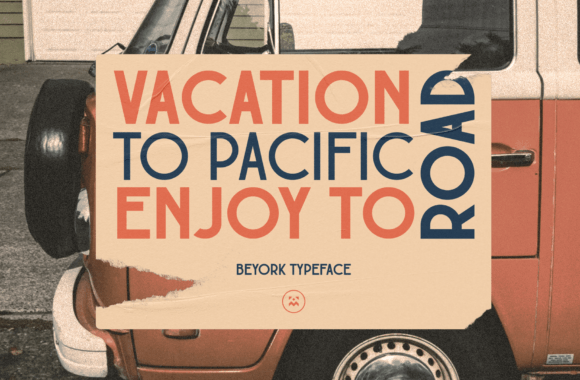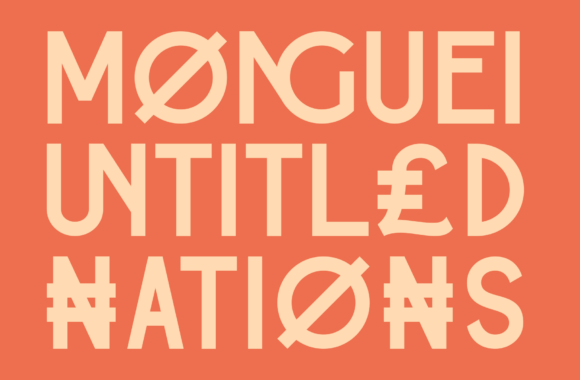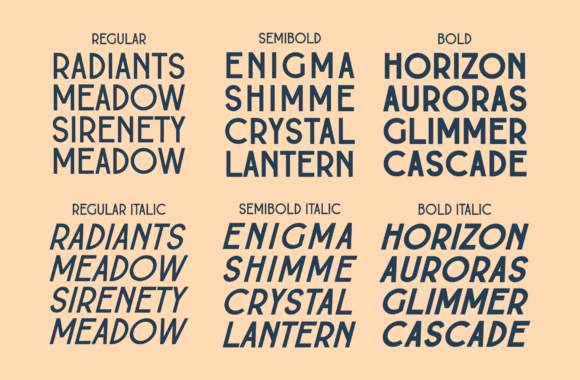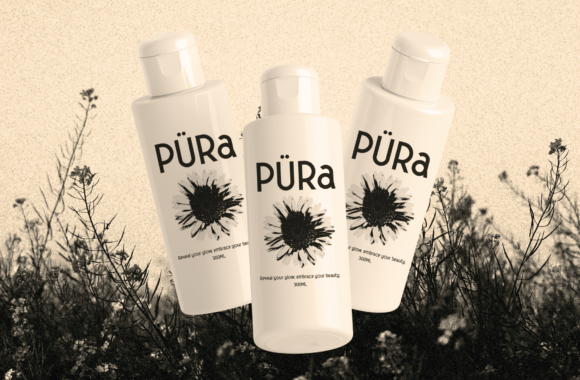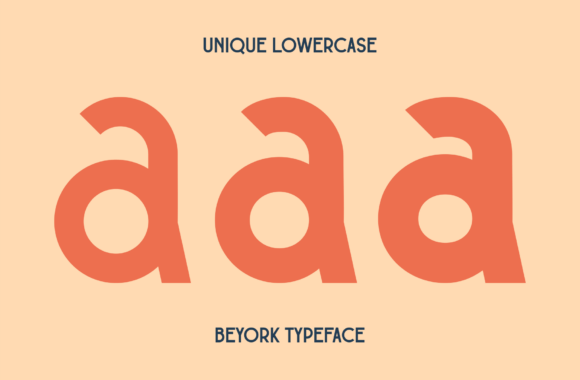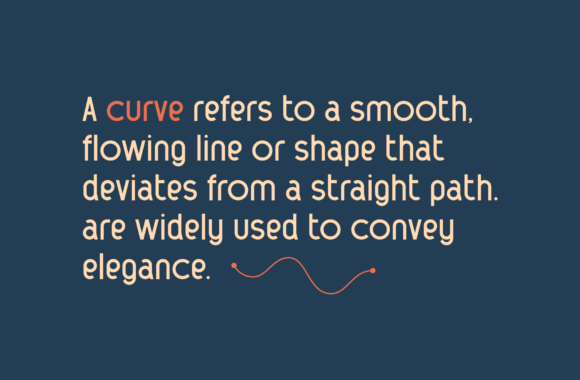
Introducing Beyork Font: A Timeless Sans Serif for Elegant Designs
In the world of typography, a font can make all the difference in conveying a message with style and sophistication. Meet Beyork, a classic sans serif font that embodies elegance and strength, making it an excellent choice for designers and crafters looking to elevate their designs. With its unique charm and versatility, Beyork is poised to become a go-to font for a wide range of applications.
A Balanced Blend of Modernity and Timelessness
Beyork’s design strikes a perfect balance between modernity and timelessness, making it an ideal choice for designers seeking a font that will stand the test of time. Its clean lines, precise curves, and distinctive characteristics give the font a personality that enhances readability and visual appeal. Whether you’re working on a branding project, editorial design, or high-end marketing materials, Beyork is sure to impress.
A Font Family with Versatility
The Beyork font family offers six distinct styles: Regular, Italic, Semibold, Semibold Italic, Bold, and Bold Italic. This range of styles provides designers with the flexibility to use Beyork in various contexts, from subtle and elegant to bold and attention-grabbing. The font’s versatility makes it an excellent choice for:
- Branding: Create a lasting impression with Beyork’s elegant and sophisticated style.
- Editorial Design: Enhance the readability and visual appeal of your publications with Beyork’s clean lines and precise curves.
- Logos: Make a statement with Beyork’s bold and confident style.
- High-end Marketing Materials: Convey your message with clarity and elegance using Beyork’s range of styles.
Distinctive Characteristics
Beyork’s lowercase letters feature distinctive characteristics that give the font its unique personality. The font’s design ensures that each letter stands out, making it easy to read and visually appealing. The attention to detail in Beyork’s design makes it an excellent choice for designers seeking a font that will elevate their work.
Why Choose Beyork?
With so many fonts available, why choose Beyork? Here are just a few reasons why Beyork stands out:
- Elegance and Strength: Beyork embodies both elegance and strength, making it an excellent choice for sophisticated designs.
- Versatility: With six distinct styles, Beyork offers flexibility for a wide range of applications.
- Timelessness: Beyork’s design strikes a balance between modernity and timelessness, ensuring it will remain relevant for years to come.
- Readability: Beyork’s clean lines and precise curves enhance readability, making it an excellent choice for editorial design and marketing materials.
In conclusion, Beyork is a classic sans serif font that offers elegance, strength, and versatility. With its unique charm and range of styles, Beyork is an excellent choice for designers and crafters seeking a font that will elevate their designs. Whether you’re working on a branding project, editorial design, or high-end marketing materials, Beyork is sure to impress. Discover the power of Beyork and take your designs to the next level.